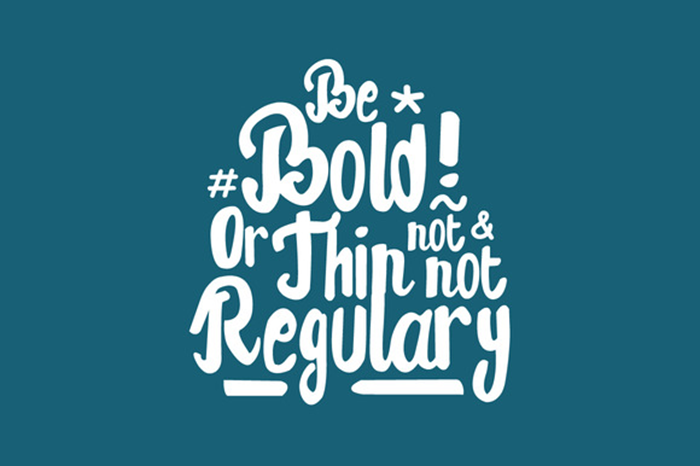
SiennaBlue
SiennaBlue Script Font
SiennaBlue. A loose handed script, messy yet not. A fun addition to any project!. “SiennaBlue” is perfectly suited to stationery, logos, t-shirt, paper, print design, website header, photo frame, flyer, music cover, poster, image slider and much more.